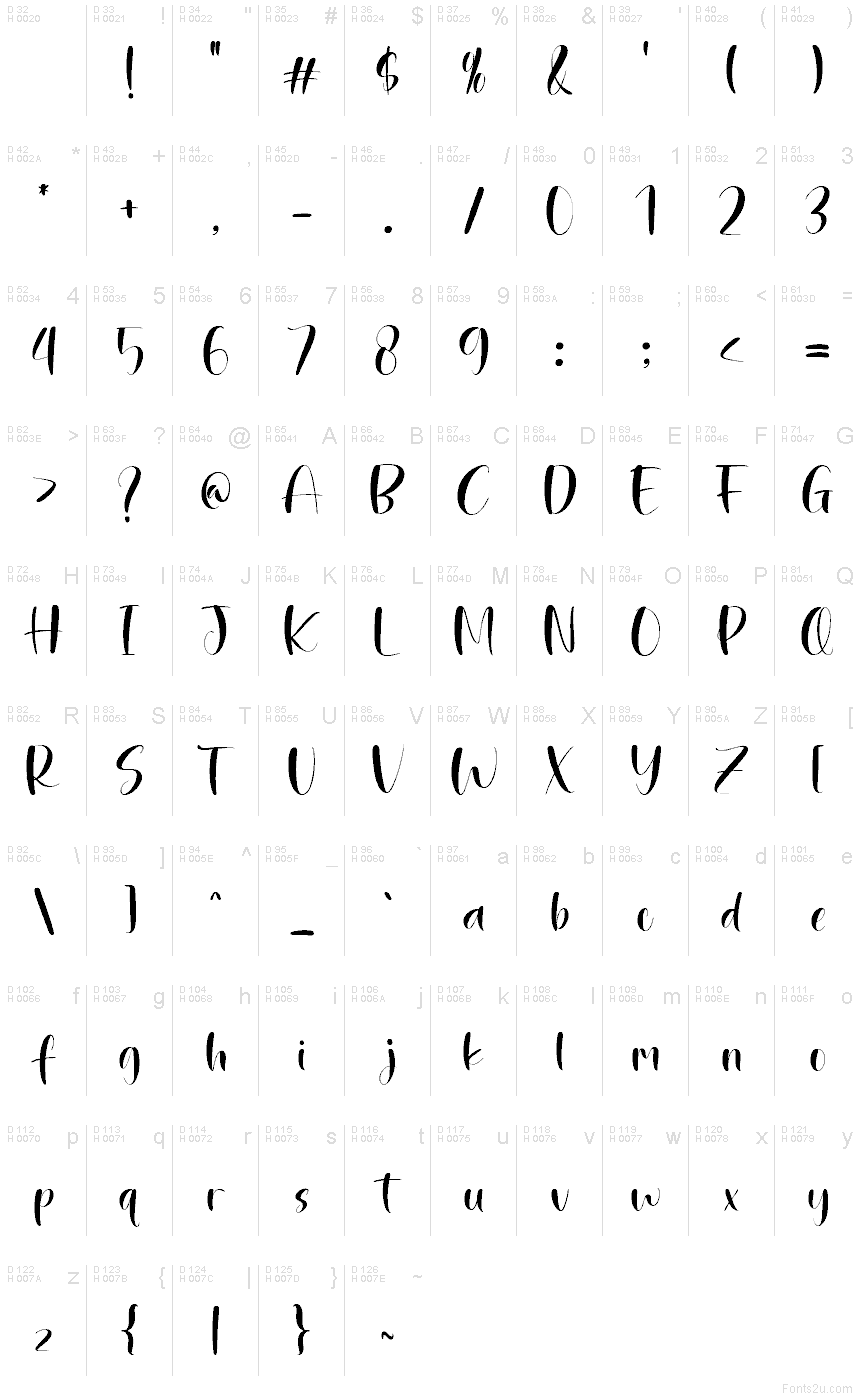
NCL Mister Gorgeous
NCL Mister Gorgeous font by Enxyclo Studio is a free handwritten font that flawlessly combines an artistic flair with an elegant appearance. It denotes a flowing script perfect for creative expression in contemporary applications such as branding and invitations.